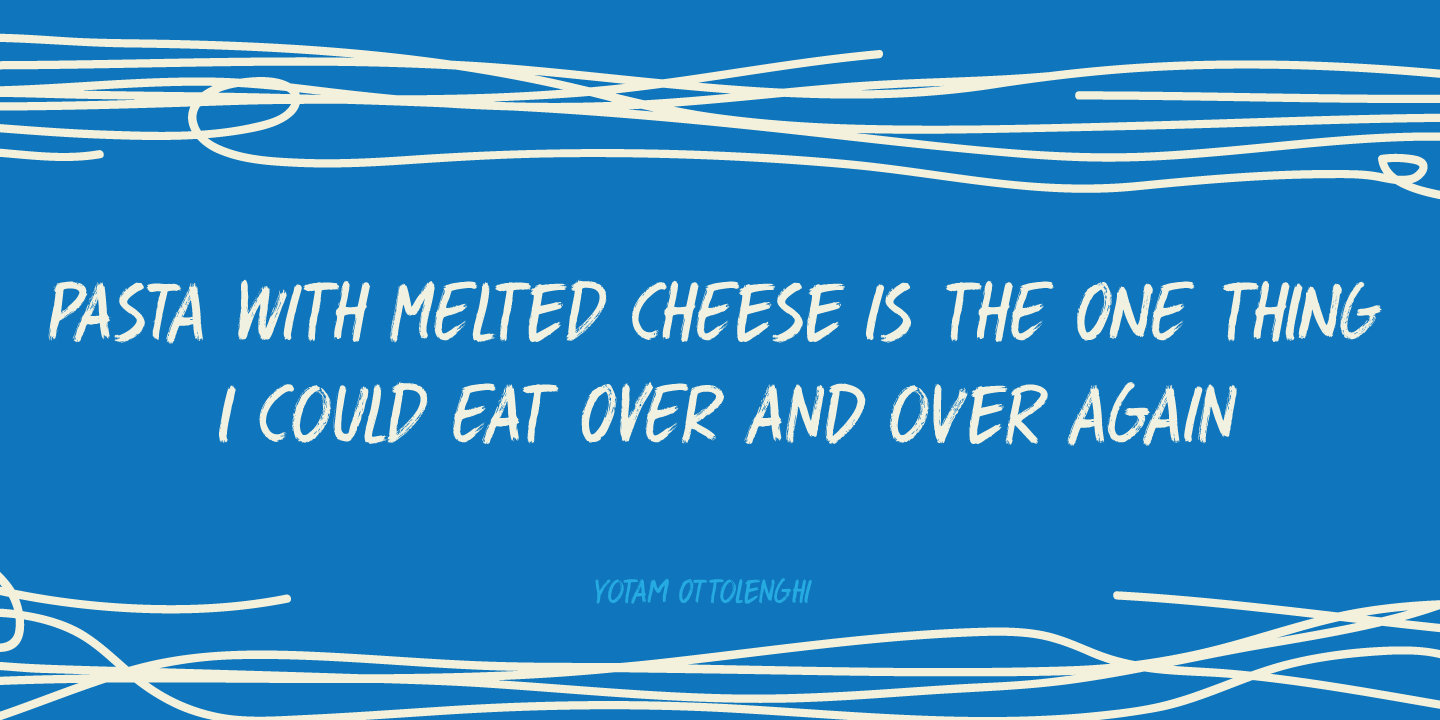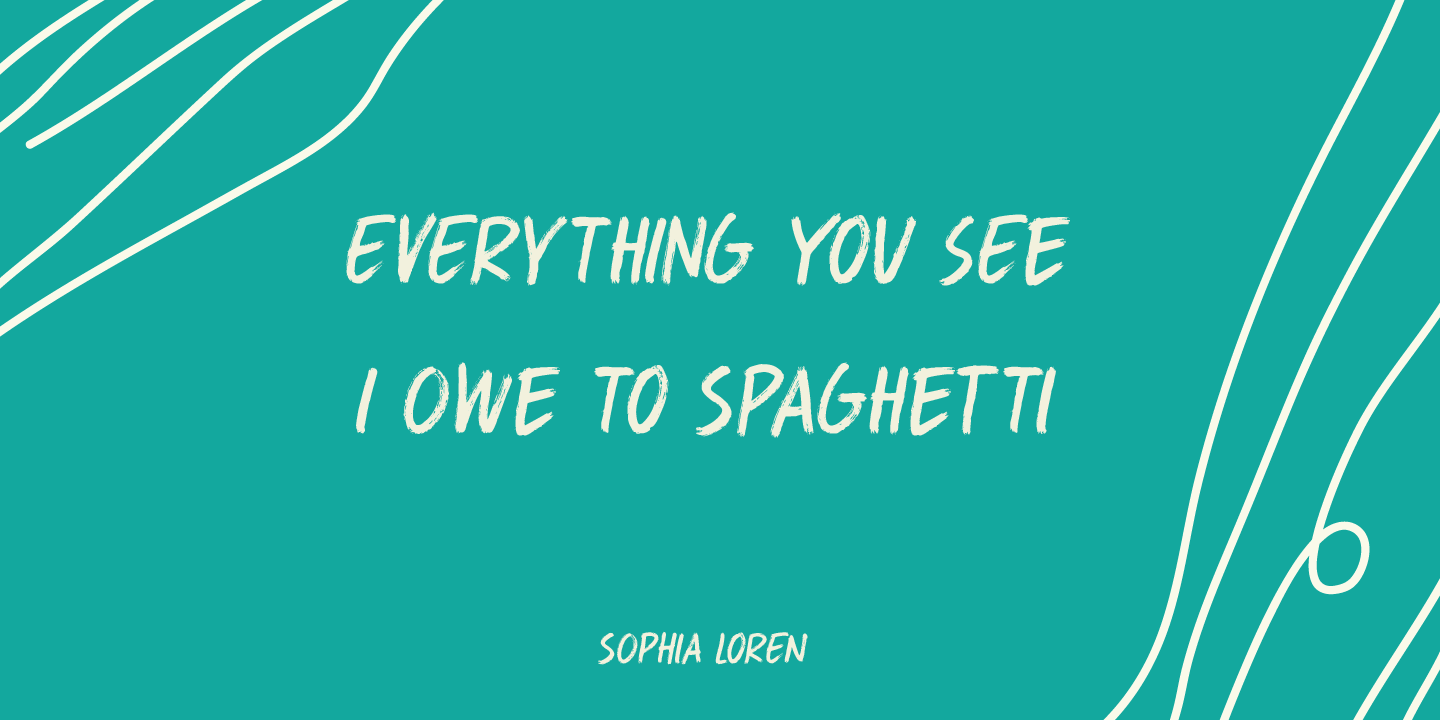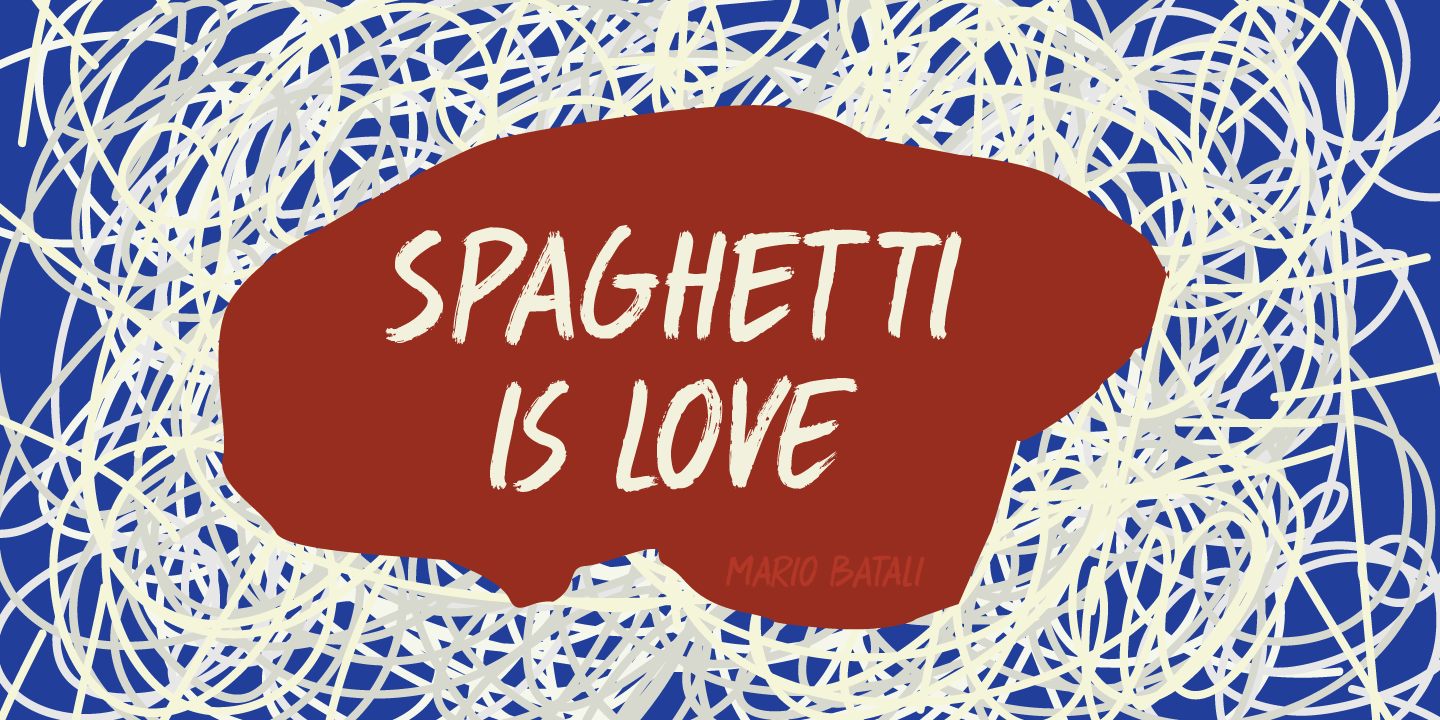
About Spaghetti & Cheese
Who doesn\’t like Spaghetti & Cheese? Well, my son doesn\’t like it, because he hates cheese, but he seems to be one of the few. Spaghetti & Cheese is also a handmade font: slightly slanted, slightly eroded, yet very legible and clear. It was made with…